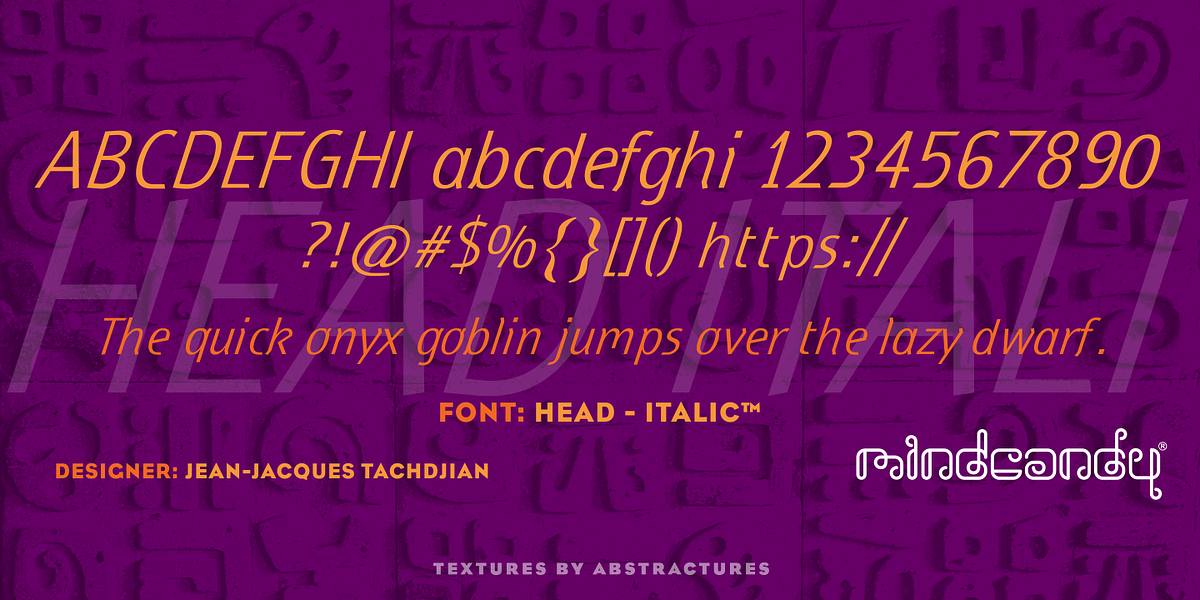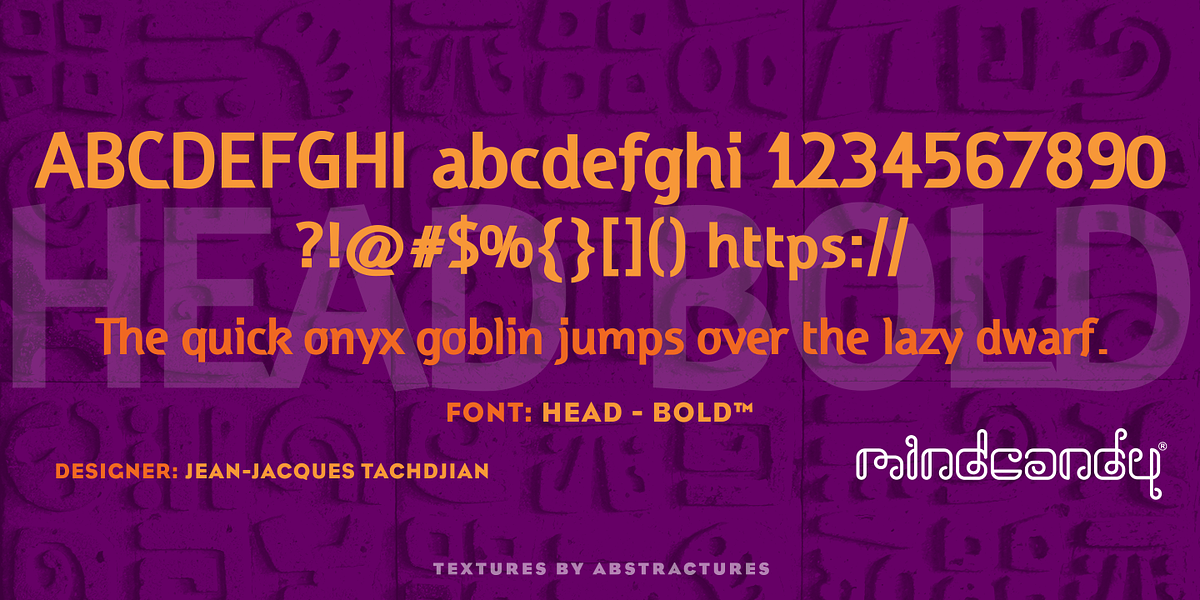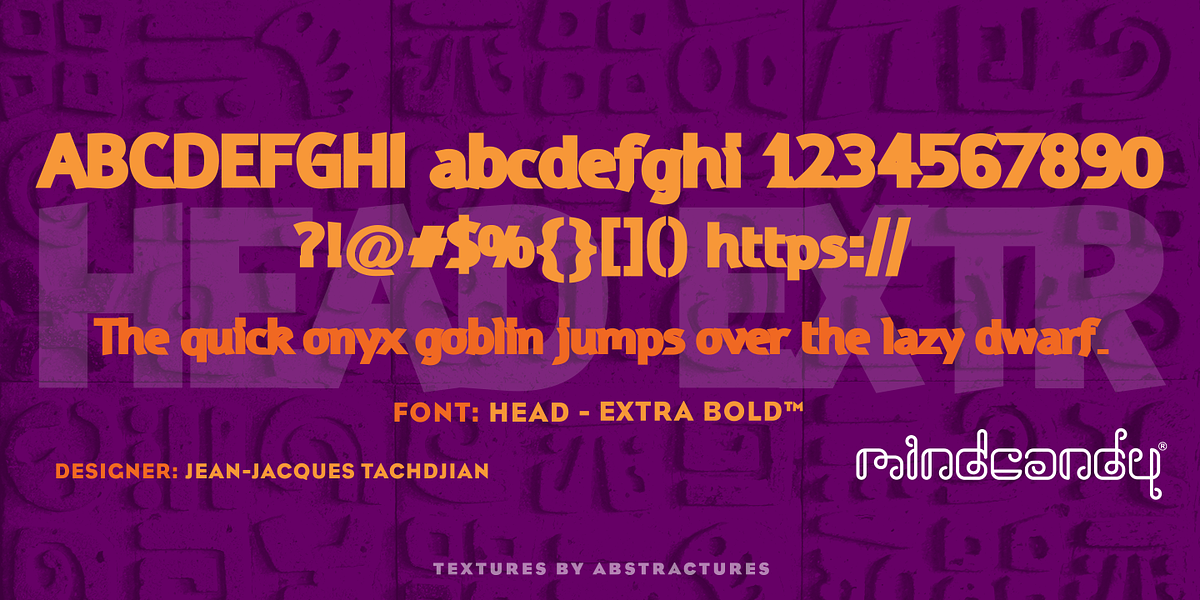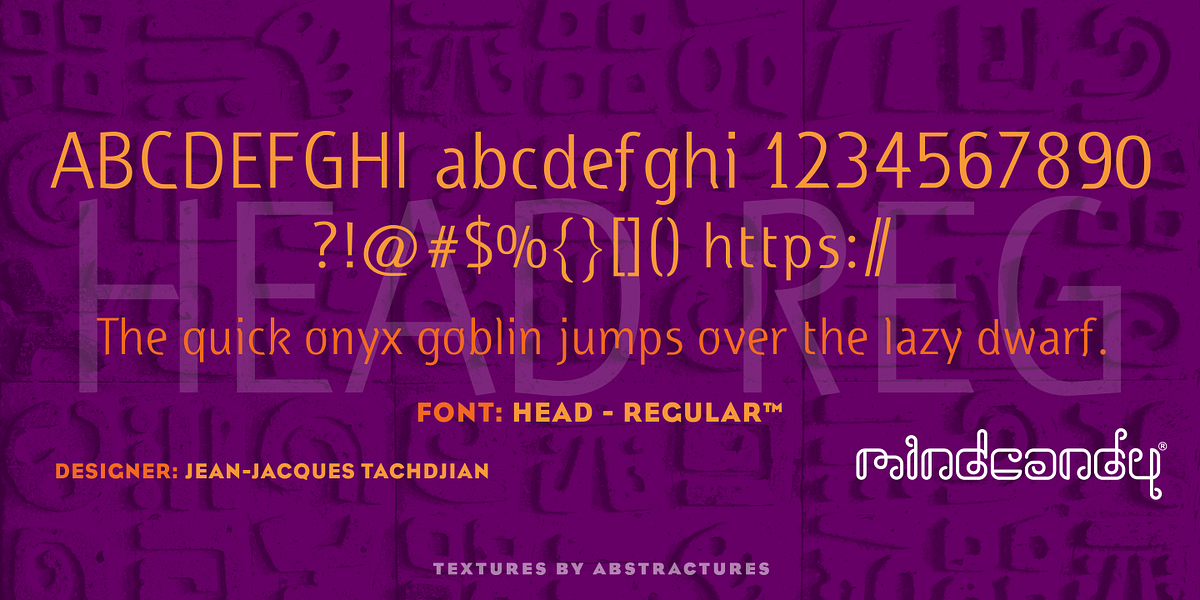
Head™
This geometric sans-serif font is designed for display purposes. Its clean lines and modern aesthetic make it suitable for branding, headlines, and web design.